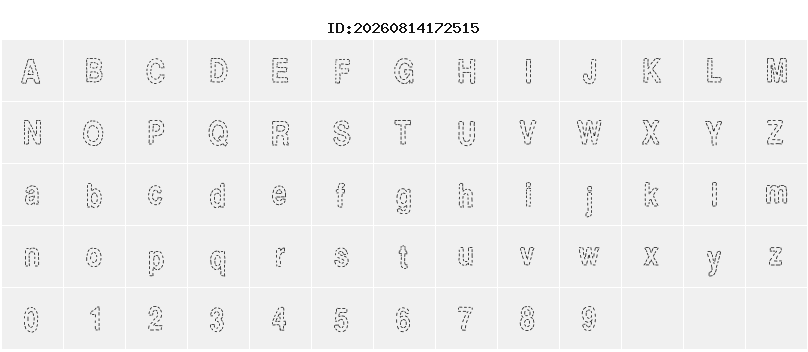
• Font Name: Stitch & Bitch
• Full Font Name: Stitch & Bitch
About Stitch & Bitch.ttf
Stitch & Bitch.ttf is a modern, elegant sans-serif font designed for ultimate readability and visual harmony. Perfect for branding, headlines, web design, and print materials.